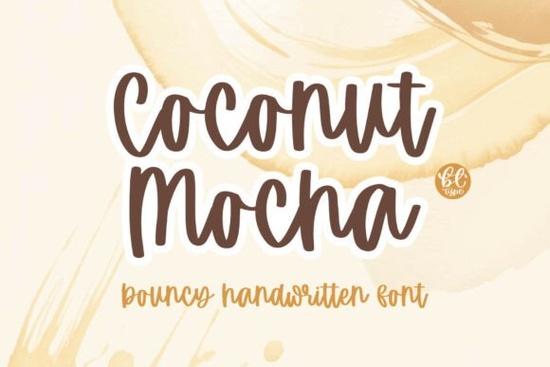
If you're looking for a warm, approachable script font that feels like a freshly brewed cup of coffee on a quiet morning, the Coconut Mocha Font is a thoughtful choice especially if you design for small businesses, crafters, or print-on-demand sellers who value personality and readability in equal measure. It’s not overly ornate or fussy; instead, it balances soft curves with confident thickness, giving it presence without sacrificing legibility even at smaller sizes or on textured surfaces like kraft paper or ceramic mugs.
What makes Coconut Mocha different from other script fonts?
Unlike many handwritten-style fonts that rely on dramatic swashes or tight letter connections, Coconut Mocha stands out for its relaxed baseline bounce and generous spacing. That subtle upward-and-downward rhythm mimics natural handwriting think marker pen on a café napkin but stays clean enough for real-world use. Its rounded strokes avoid sharp angles, making it feel friendly and inclusive, whether you're labeling artisanal candle jars or designing a “Thank You” card for a local bakery.
You’ll notice how well it pairs with both uppercase and lowercase letters. Try mixing them for product names (“Sunny Days Bakery”) or social media quotes (“slow down & sip”). This flexibility helps avoid visual monotony something that matters when your design appears across multiple touchpoints: Instagram posts, Cricut-cut vinyl decals, Procreate illustrations, or printable planners.
Where does Coconut Mocha work best?
This font shines in contexts where warmth and authenticity matter more than formality. Think:
- Coffee shop menus, loyalty cards, and seasonal chalkboard-style signage
- Bakery packaging labels and custom cookie wrappers
- Personalized baby onesies, children’s book chapter titles, or nursery wall art
- Wedding stationery (especially for rustic, garden, or brunch-themed events)
- Digital stickers, Canva templates, and printable habit trackers
It also performs reliably in cutting software like Silhouette Studio and Cricut Design Space no hidden ligatures or unpredictable kerning to trip you up. And because it’s built with consistent stroke weight and open counters, it holds up well when printed at low resolution or cut from thin vinyl.
How does it compare to similar script fonts?
If you’ve used Samantha Handwriting, you’ll appreciate Coconut Mocha’s slightly more structured rhythm less “sketchy,” more “confidently casual.” Compared to Vintage Melinda, it trades retro flair for modern comfort. While Valentina Calligraphy leans elegant and formal, Coconut Mocha keeps things grounded and conversational. And unlike Amellia, which has delicate hairlines and fine details, Coconut Mocha prioritizes clarity and charm over intricacy ideal for makers who want impact without extra tweaking.
- Test readability at 14–18pt especially if using it for planner headers or product tags.
- Try it alongside a clean sans-serif (like Montserrat or Poppins) for contrast in logos or flyers.
- Avoid all-caps settings the font’s charm lives in its lowercase flow and mixed-case balance.
It’s worth noting that while Coconut Mocha works beautifully for cozy, handmade aesthetics, it’s not meant for high-contrast branding like tech startups or law firms. That’s okay great fonts have clear personalities, and knowing when not to use one is just as valuable as knowing when to reach for it.
If you’re already working with script fonts in your library, try swapping in Coconut Mocha for one upcoming project maybe a set of holiday gift tags or a new line of soy candles. See how its bouncy baseline changes the mood. You might find it becomes your go-to for anything that needs to say “welcome,” “treat yourself,” or “made with care” without saying a word.